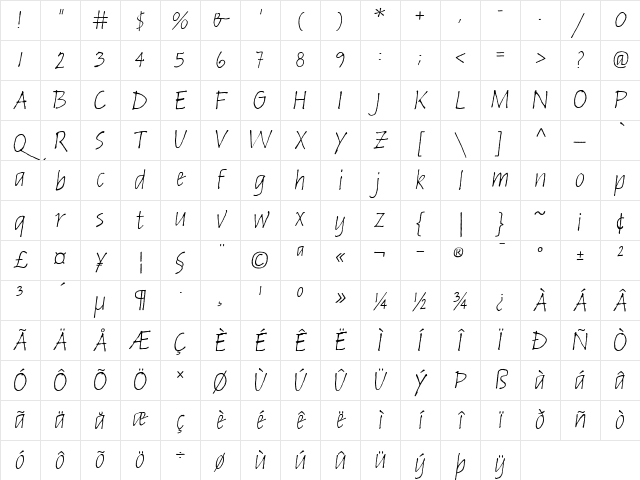
RussellInformal RomanItalic
Style: RomanItalic
Design Context for RussellInformal
RussellInformal is a composed and adaptable typeface that performs quietly and consistently across a wide range of design contexts. The slanted form adds forward momentum and visual energy.